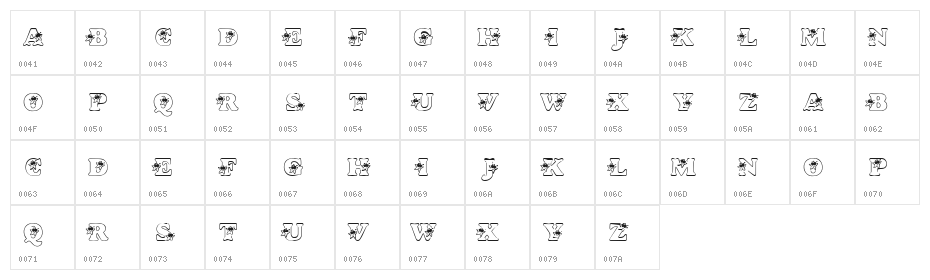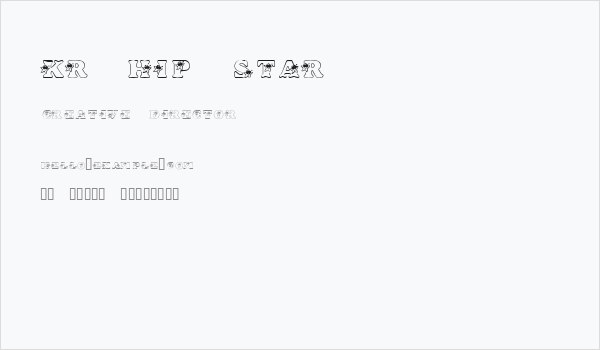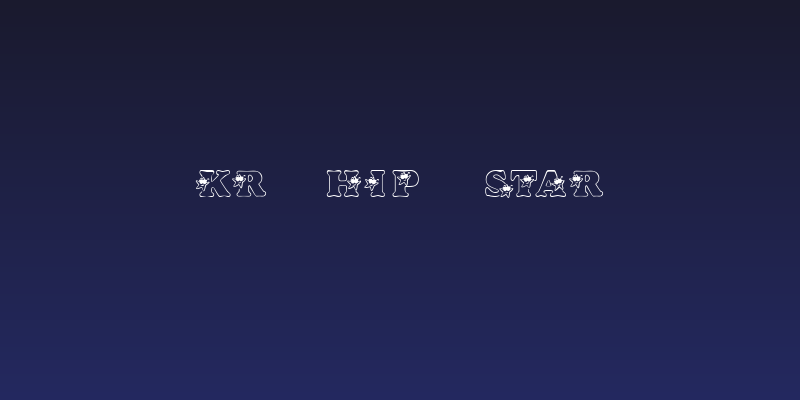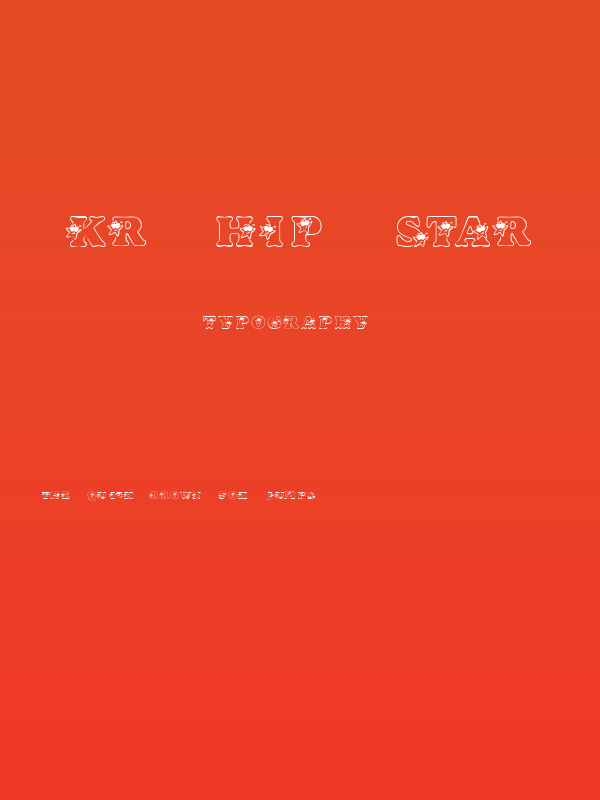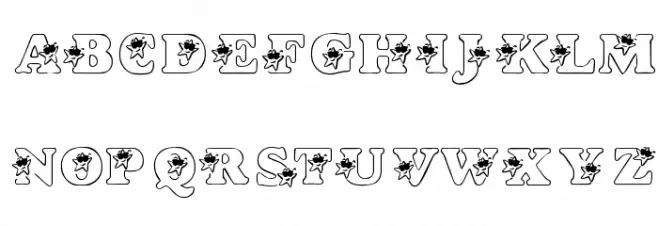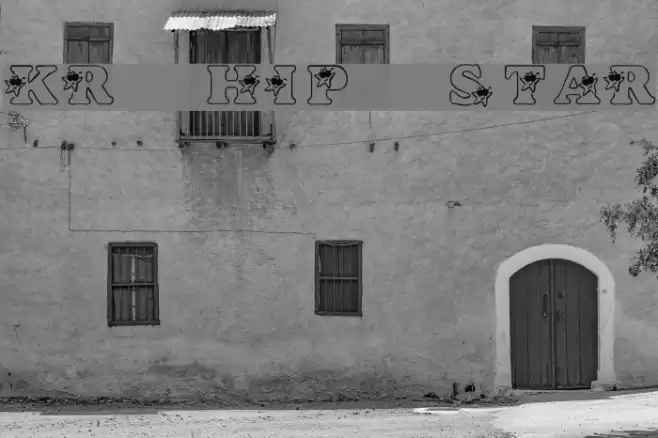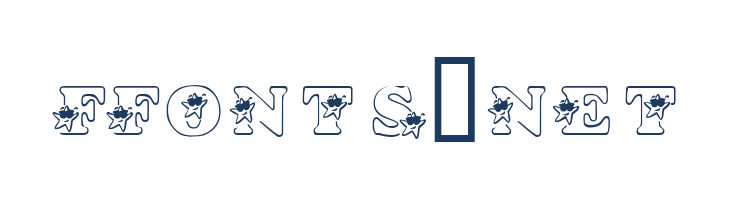
KR Hip Star Font
This decorative font features bold, uppercase letters with a playful and whimsical design. Each character is adorned with star motifs, adding a unique and eye-catching element. The outlines are thick, giving the font a strong presence, while the interior details provide a sense of fun and creativity. The overall style is reminiscent of retro or vintage designs, making it suitable for projects that require a touch of nostalgia or a playful aesthetic.
| Overall Style | Vintage, Decorative |
| Proposed Projects | Ideal for children's book covers, party invitations, posters, and any design that benefits from a playful and eye-catching typeface. |